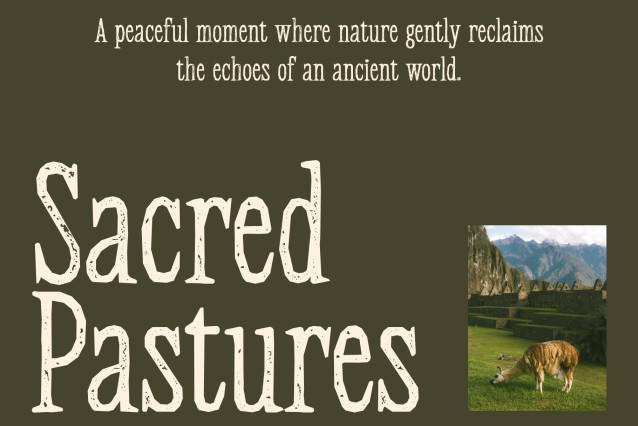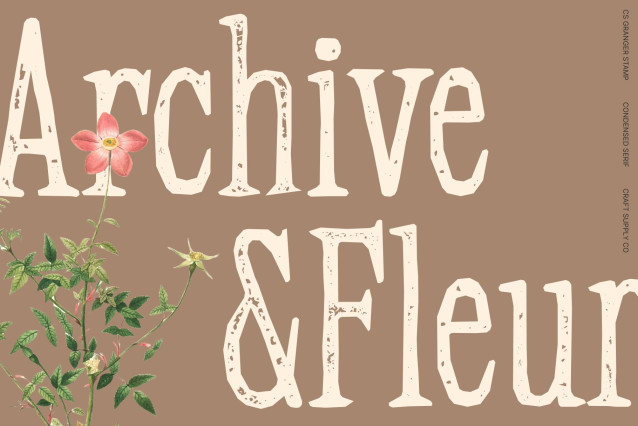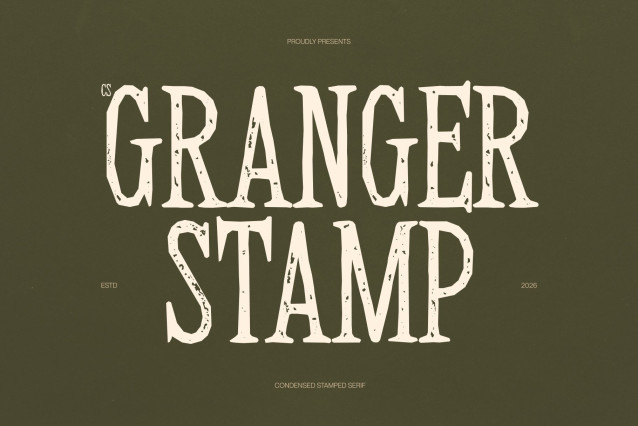
CS Granger Stamp Font
CS Granger Stamp – Condensed Font with Classic Refinement
Elegant Serif with a Space-Saving Structure
This is a modern serif font featuring a condensed, clean, and contemporary structure designed for slim, space-efficient layouts. Its tall letterforms and refined spacing maintain excellent readability while maximizing vertical presence perfect for editorial headlines, packaging, and refined typographic systems. The stamped texture adds subtle vintage character, giving the font a tactile, printed feel.
Balance of Classic Elegance and Modern Clarity
With finely crafted serifs and slender proportions, this typeface projects timeless sophistication and professional clarity. The blend of classic serif heritage with a contemporary approach creates a polished and confident visual tone, while the stamp effect introduces depth and a hint of heritage charm.
Versatile for High-End Editorial and Corporate Branding
Designed for elegance and efficiency, this font shines in editorial layouts, luxury branding, and corporate identities that demand refinement and authority. From magazine mastheads to logos and premium promotional materials, it delivers a distinguished voice that elevates visual storytelling.